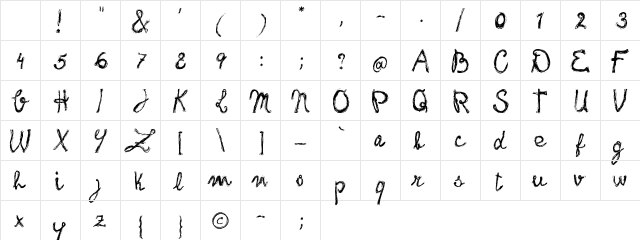
Complete frank-handwriting_free-version Regular glyph index. Displaying only characters natively supported by frank-handwriting_free-version Regular font.
frank-handwriting_free-version flows with the natural rhythm of handwritten lettering, making it ideal for designs that call for warmth and personal expression.
Font Pairing: Combine frank-handwriting_free-version with a simple geometric sans for maximum contrast - the tension between flowing curves and clean structure is a classic typographic pairing.
Pro Tip: Use frank-handwriting_free-version for short runs of text - names, titles, or taglines. Extended body copy in script faces tires the eye quickly.